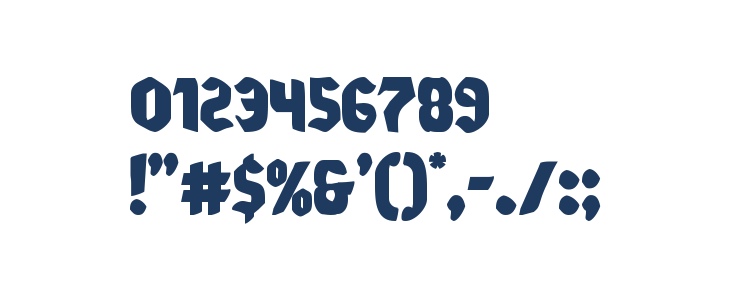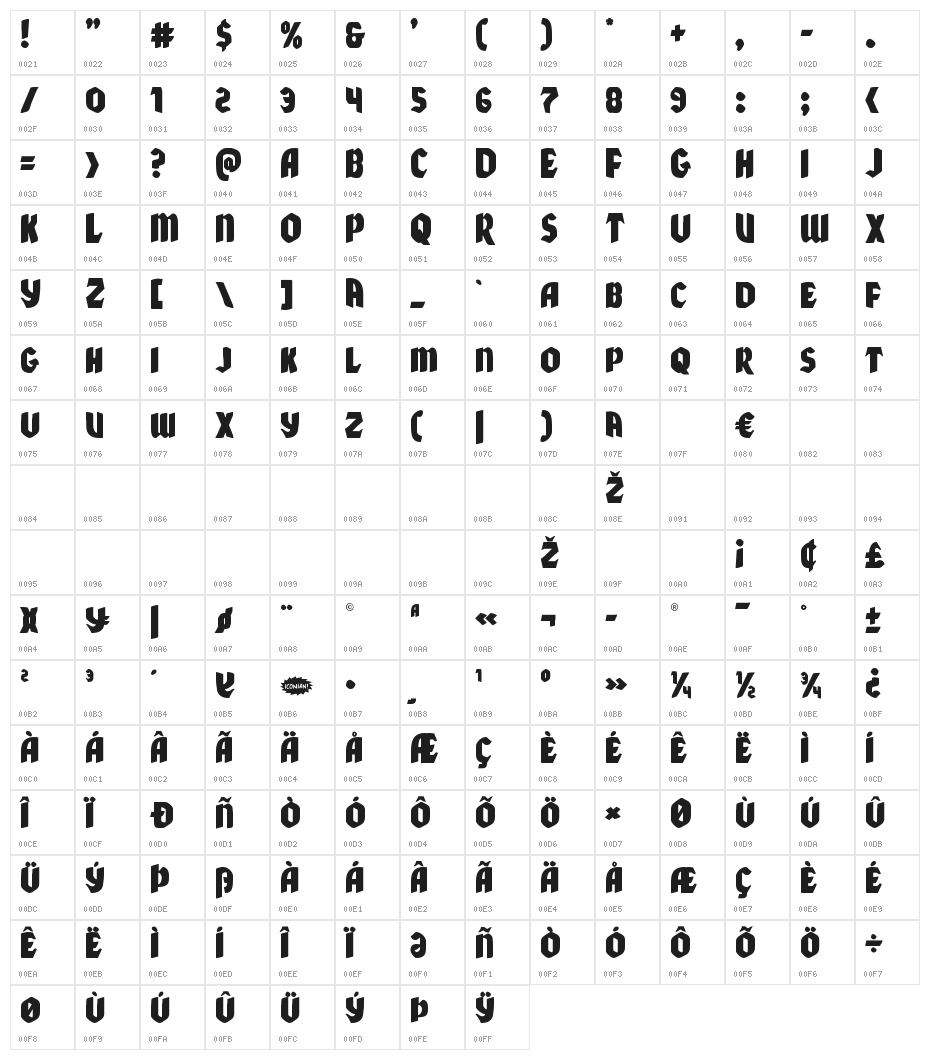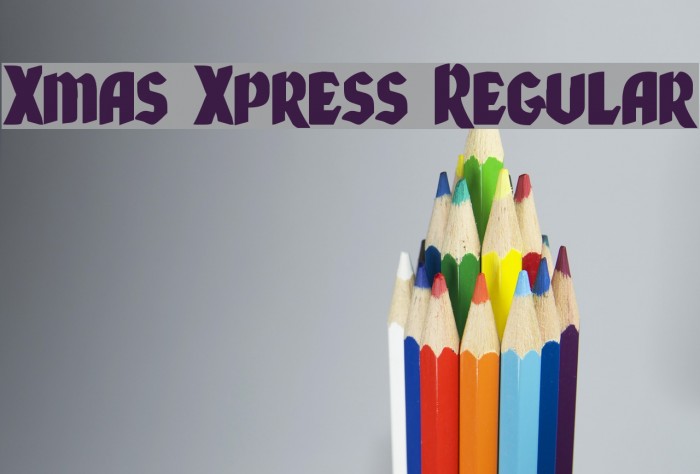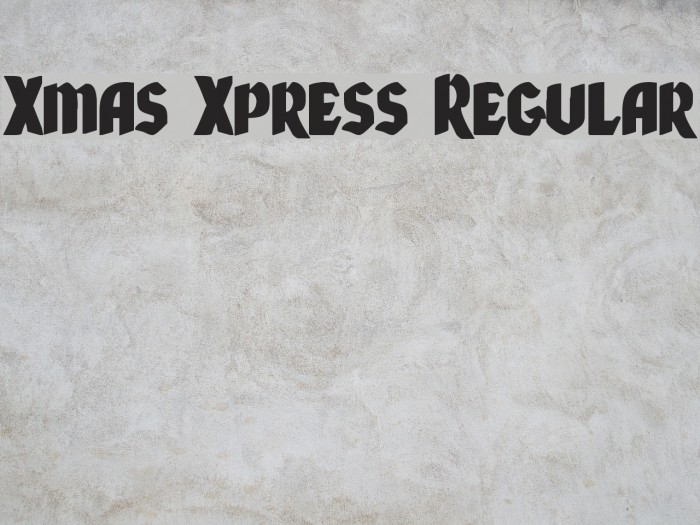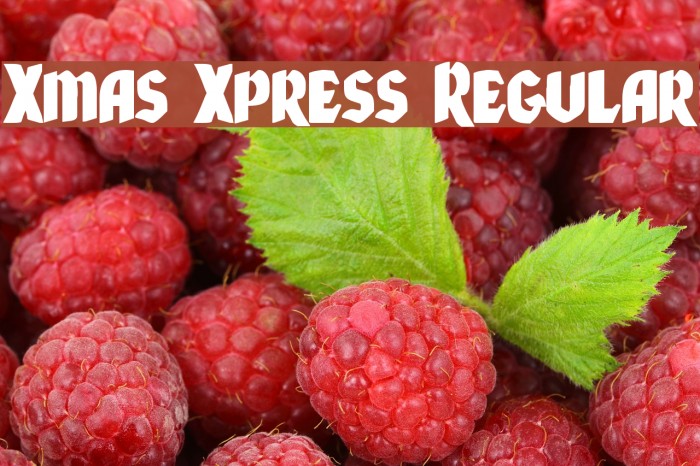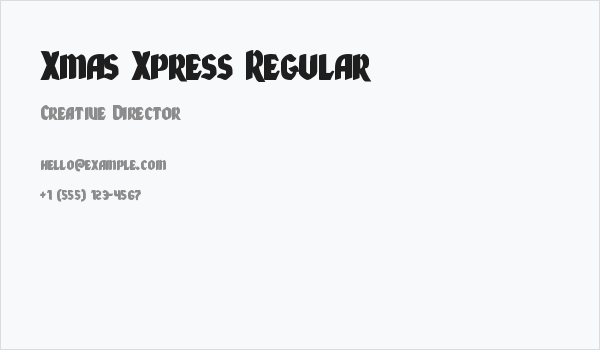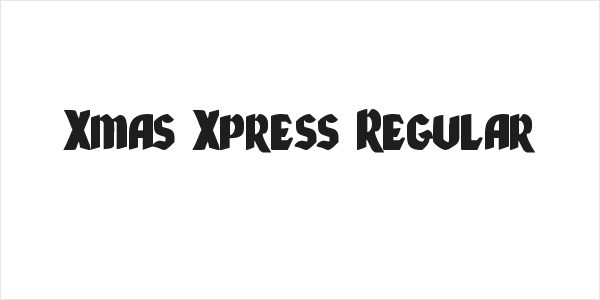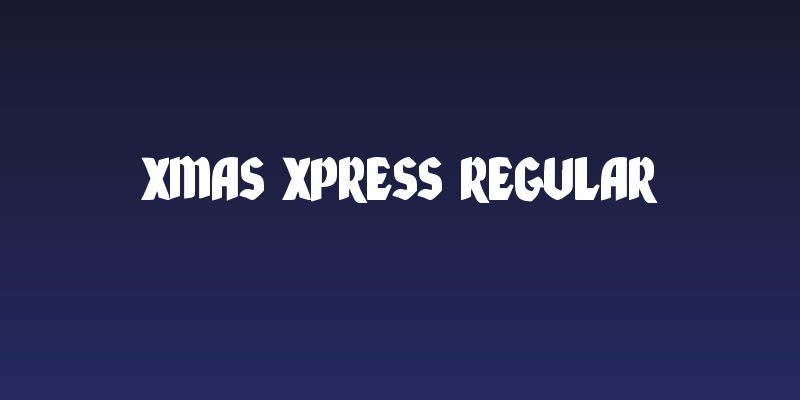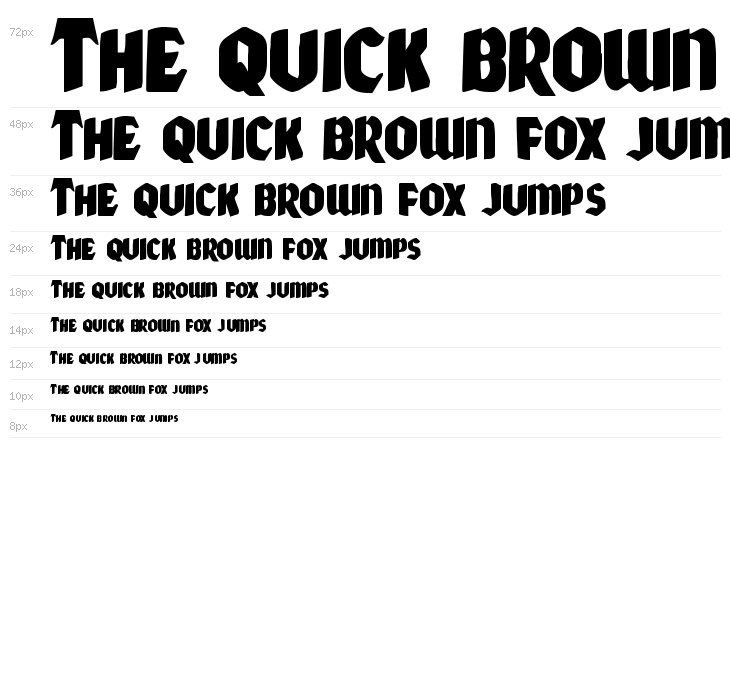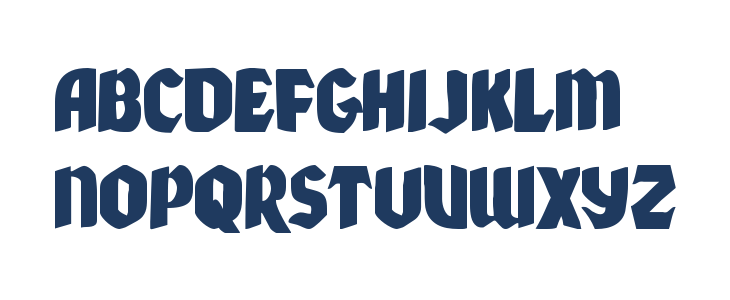
Xmas Xpress Regular Font
Xmas Xpress Regular Description
This font features bold, blocky characters with a playful and festive style, reminiscent of holiday themes. The letters are thick and have a slightly rounded appearance, giving them a friendly and approachable look. The uppercase and lowercase letters maintain a consistent weight, contributing to a cohesive design. The numbers and special characters follow the same stylistic approach, ensuring uniformity across all elements. The font's unique character shapes make it stand out, ideal for capturing attention in decorative contexts.
| Use Case | Headlines, Logos, Decorative text |
| Proposed Projects | Ideal for holiday cards, festive banners, seasonal advertisements, and playful branding projects. |